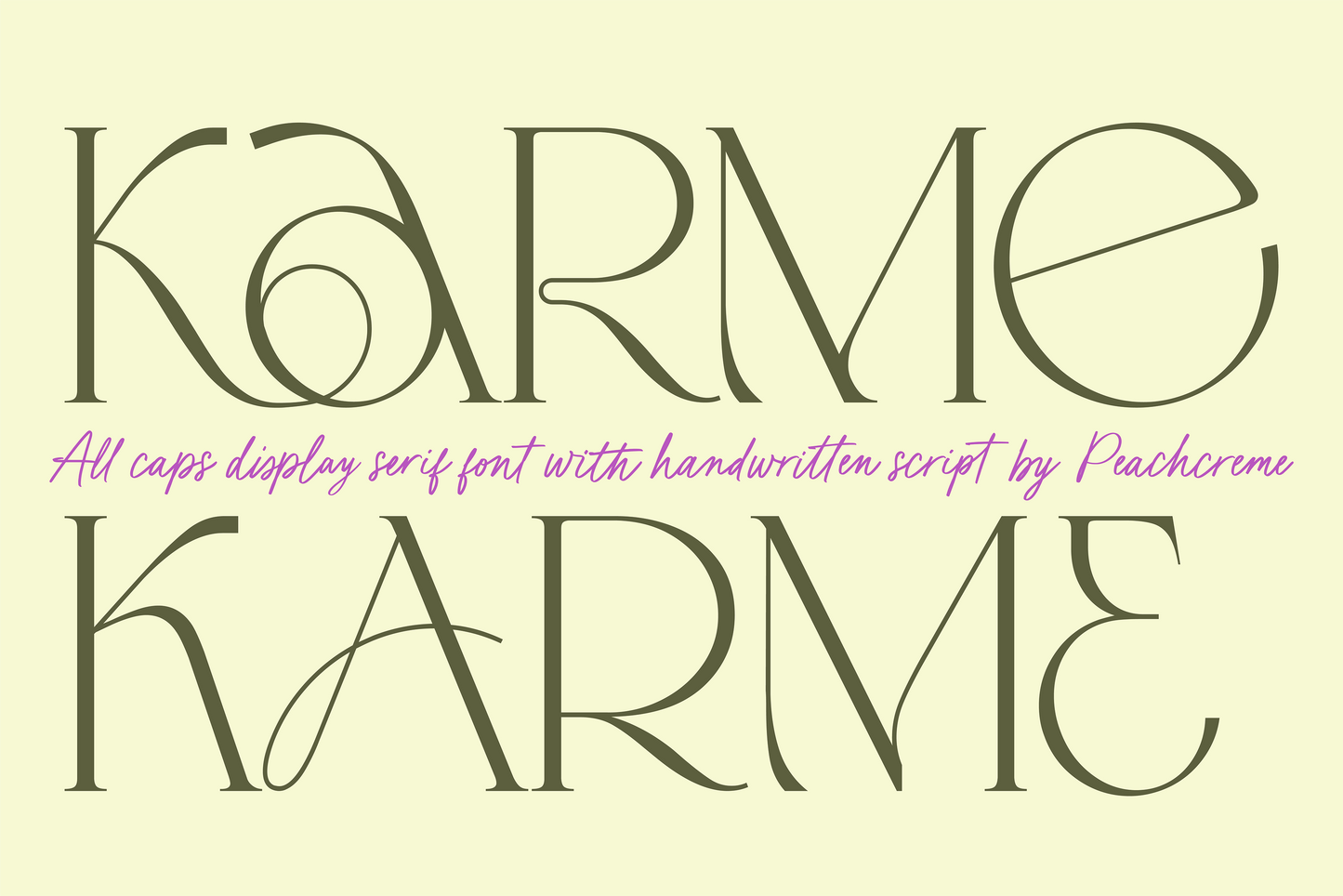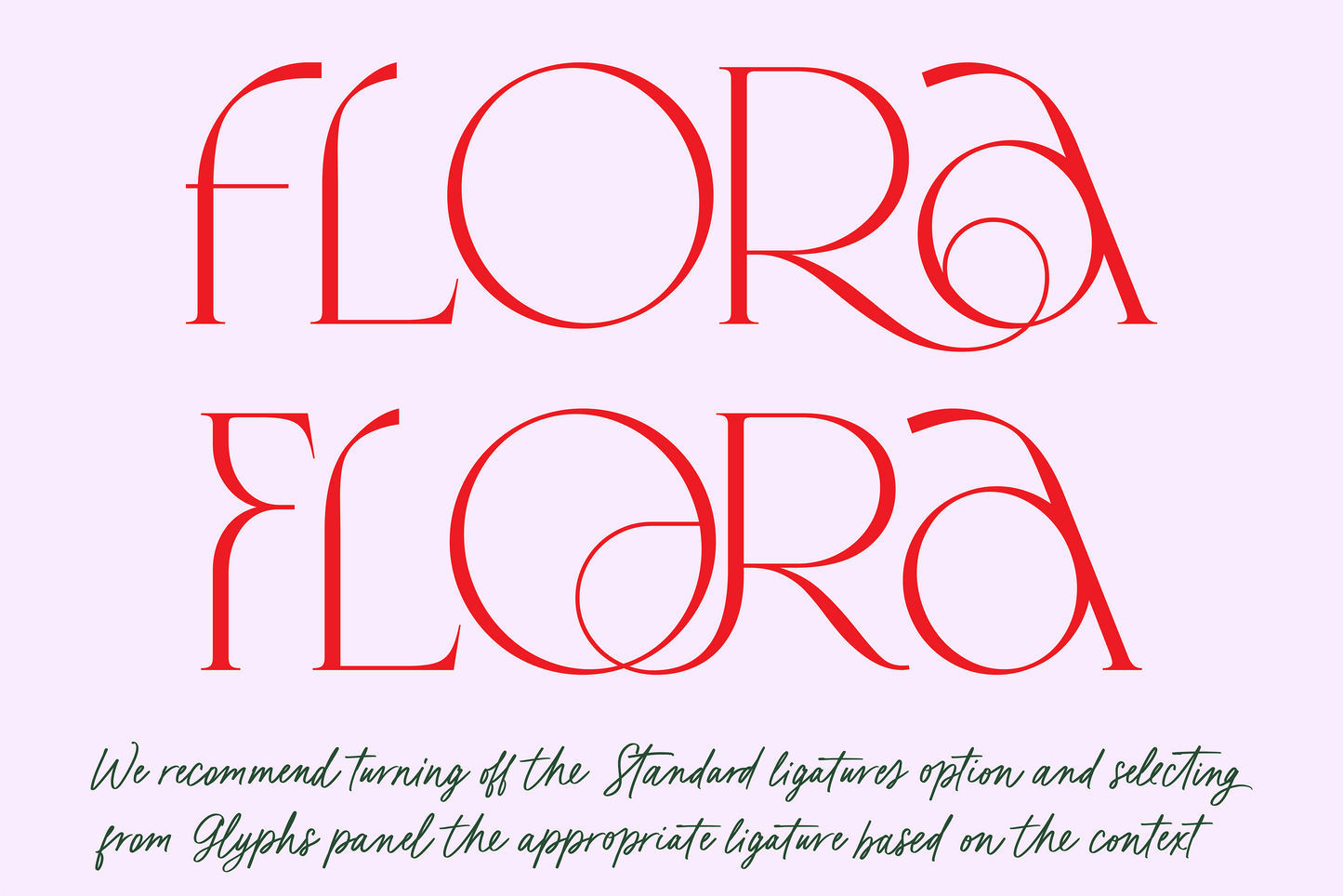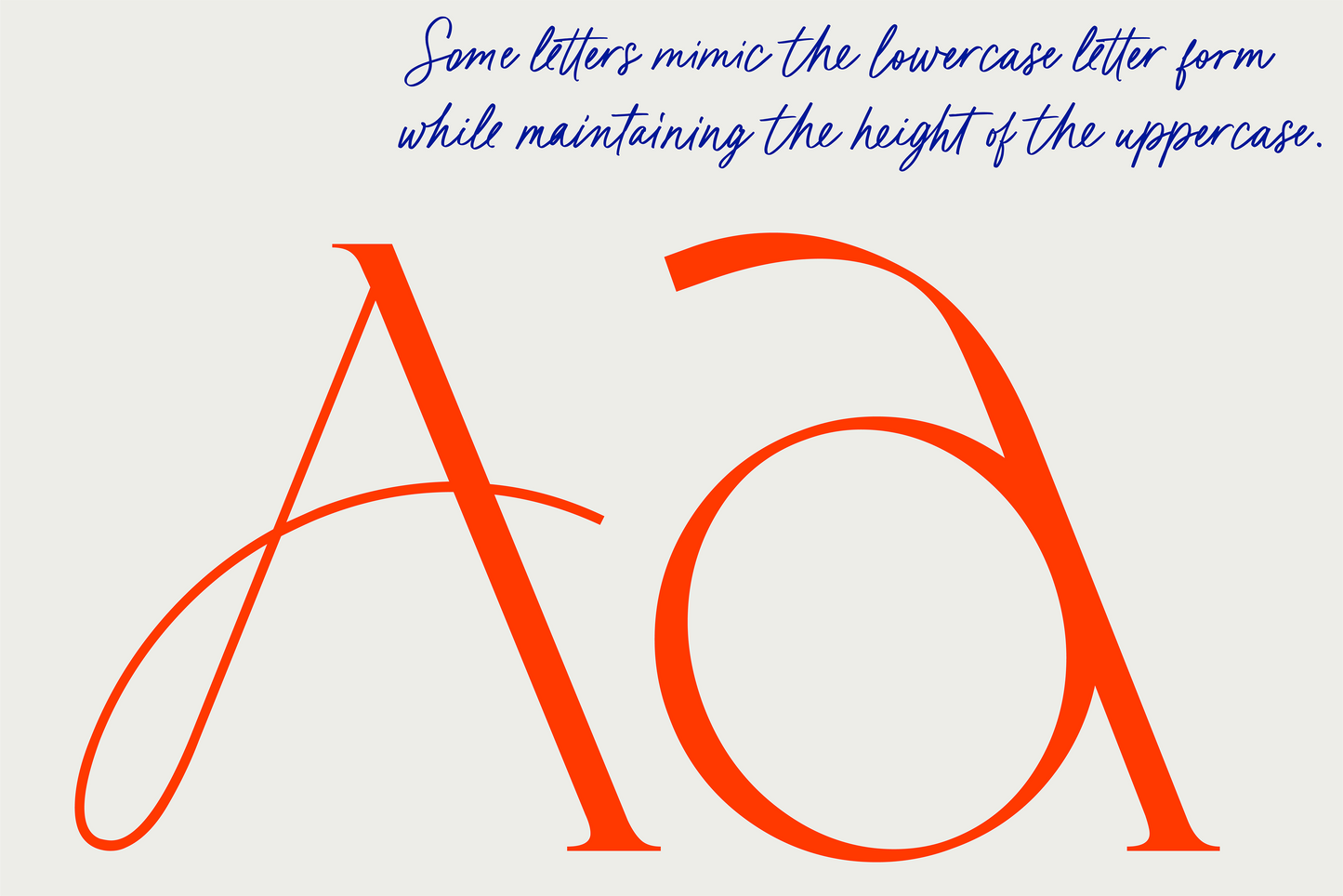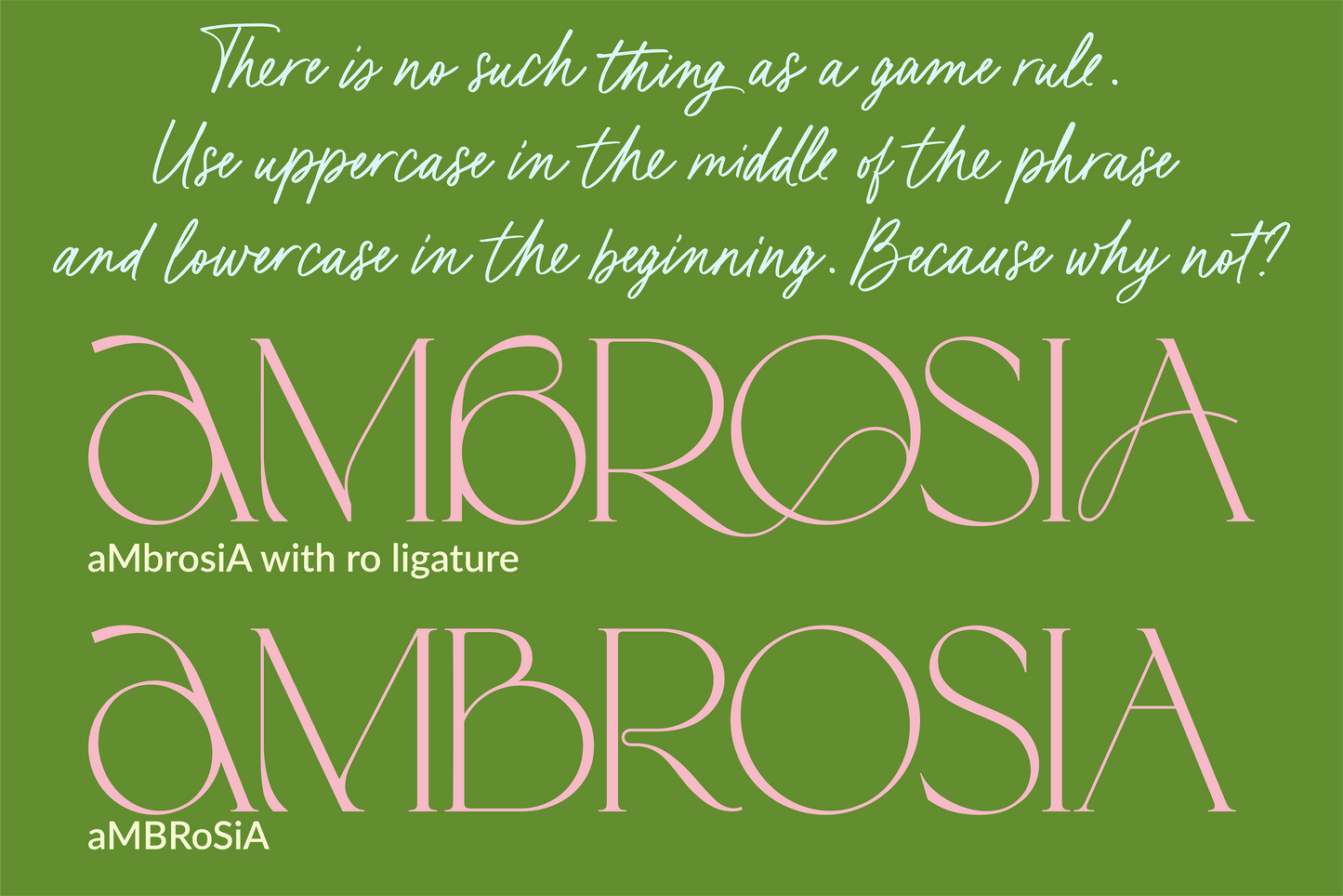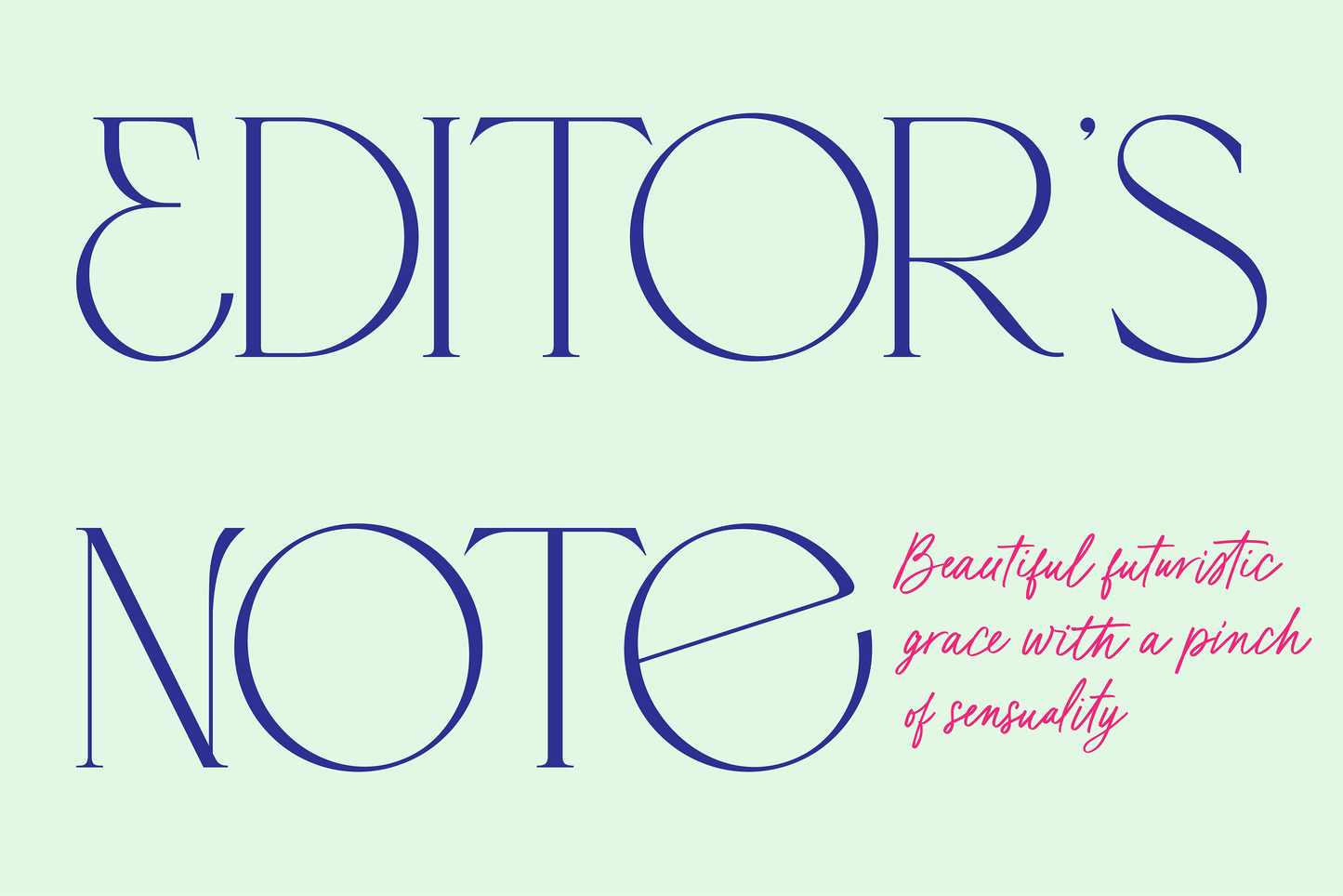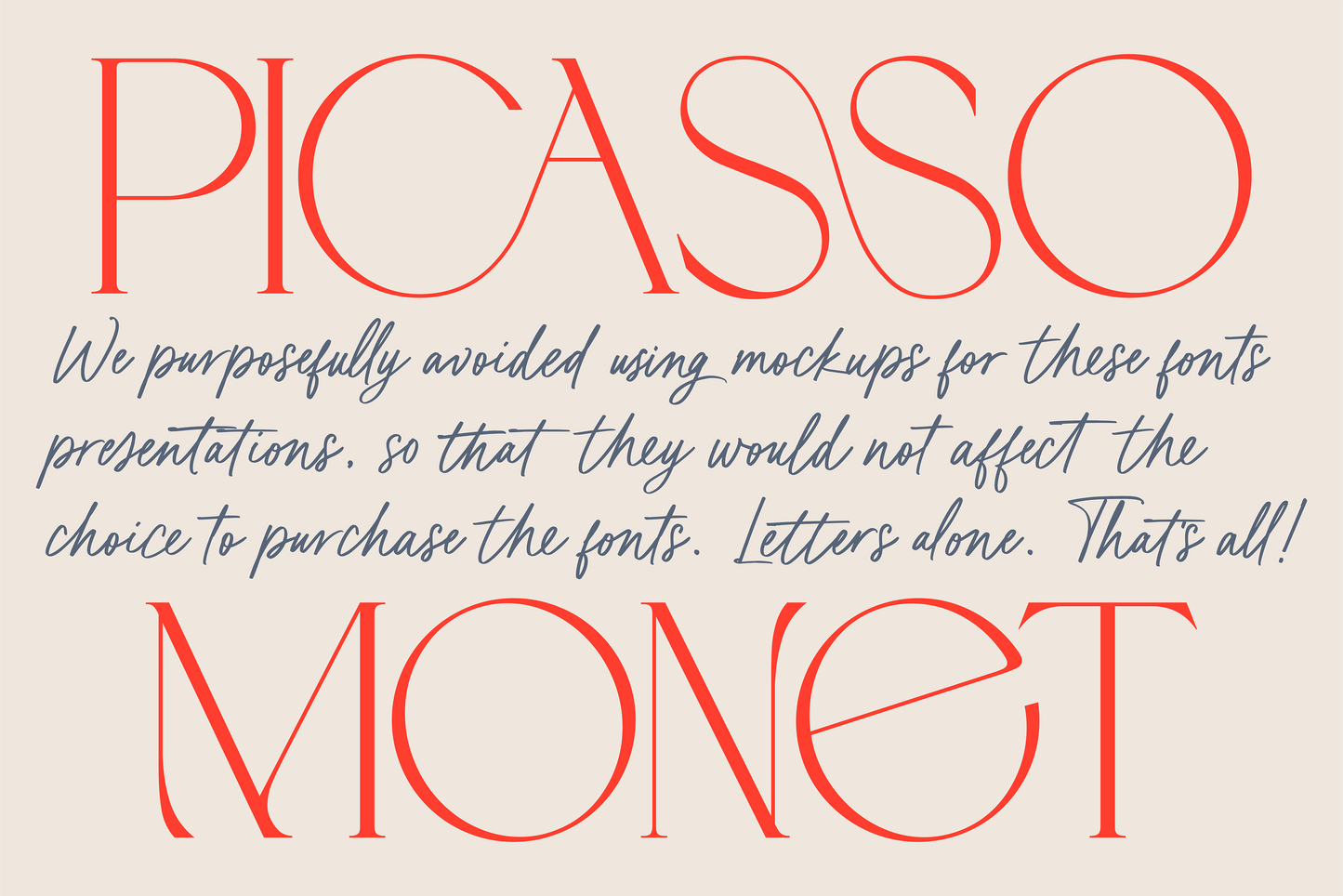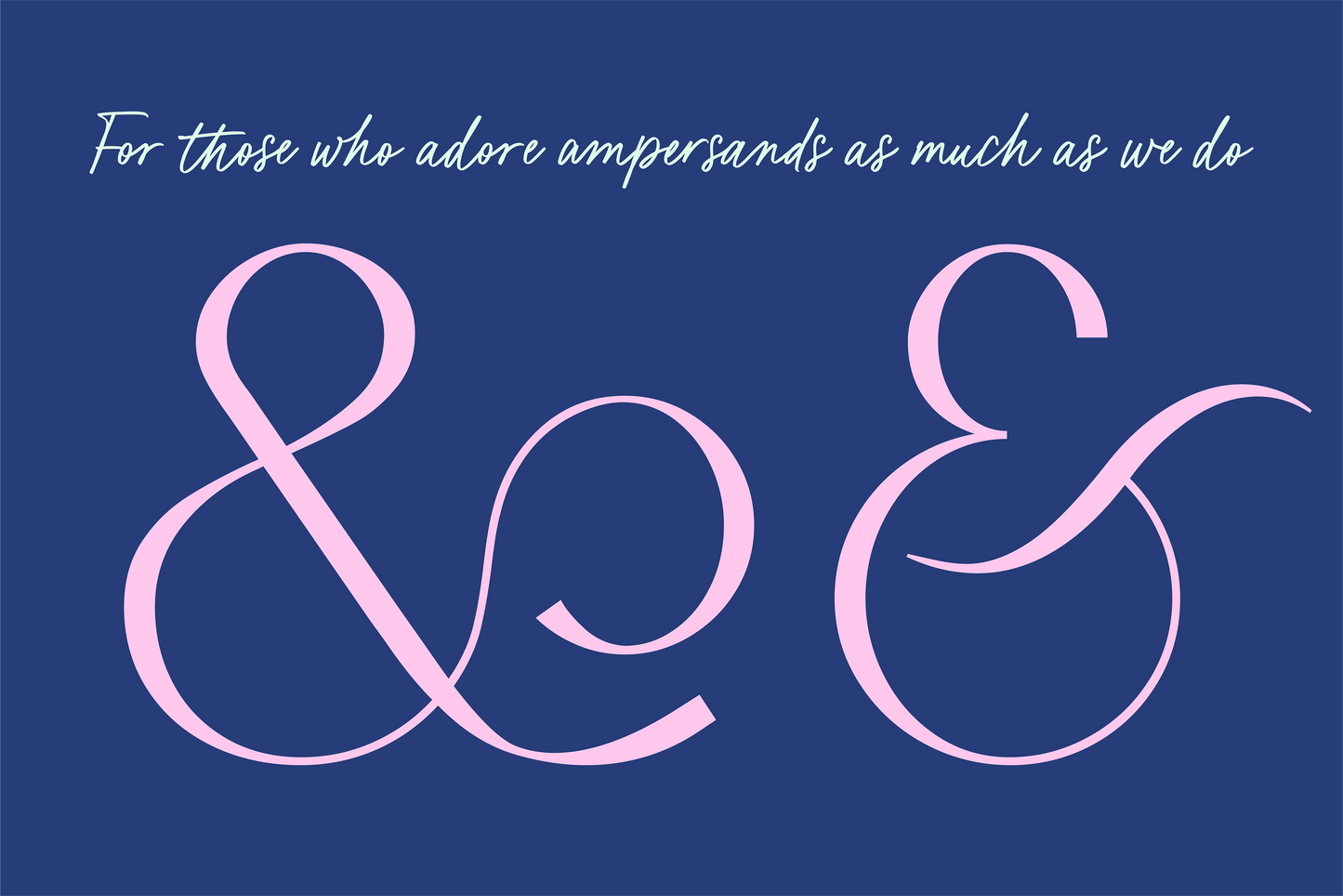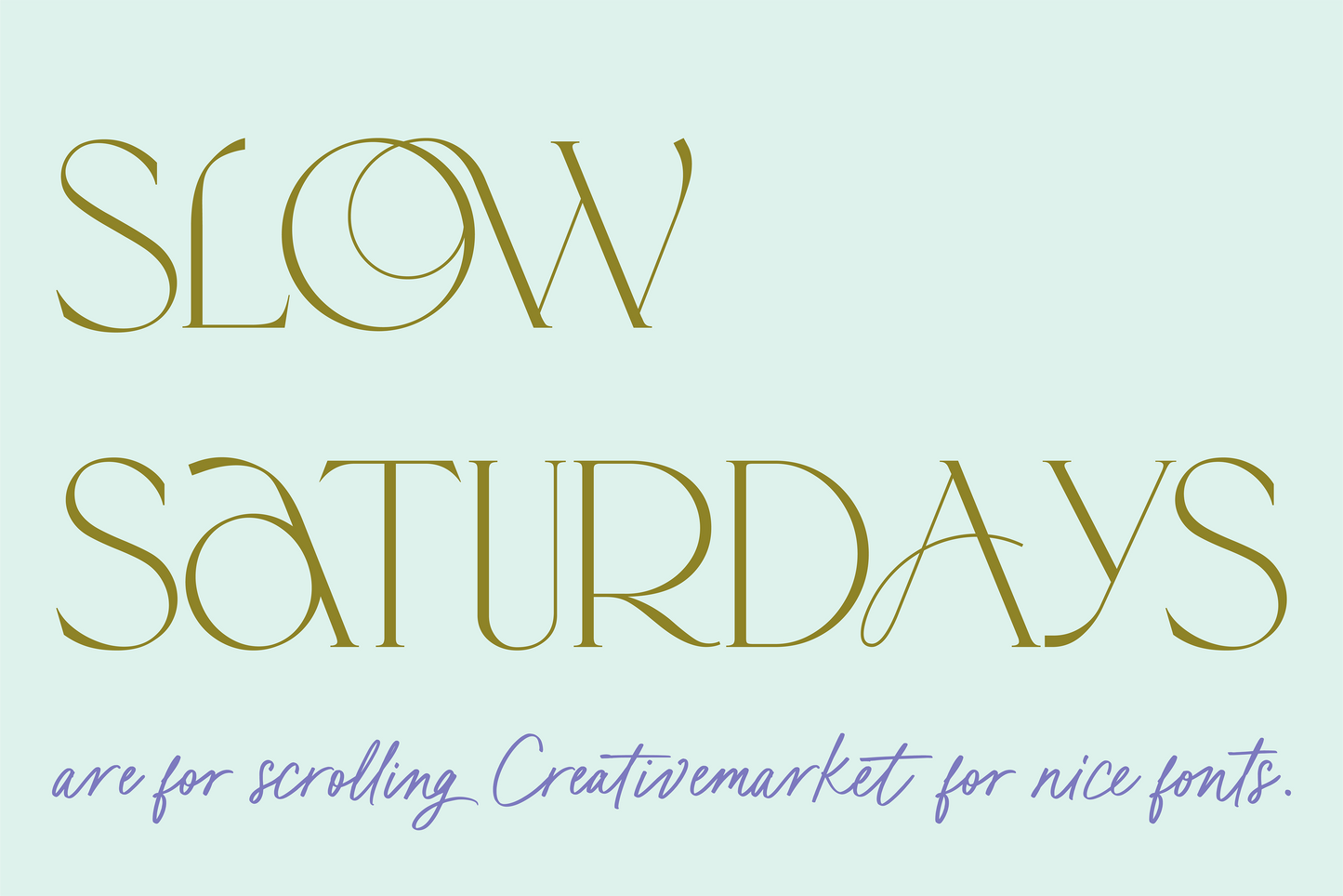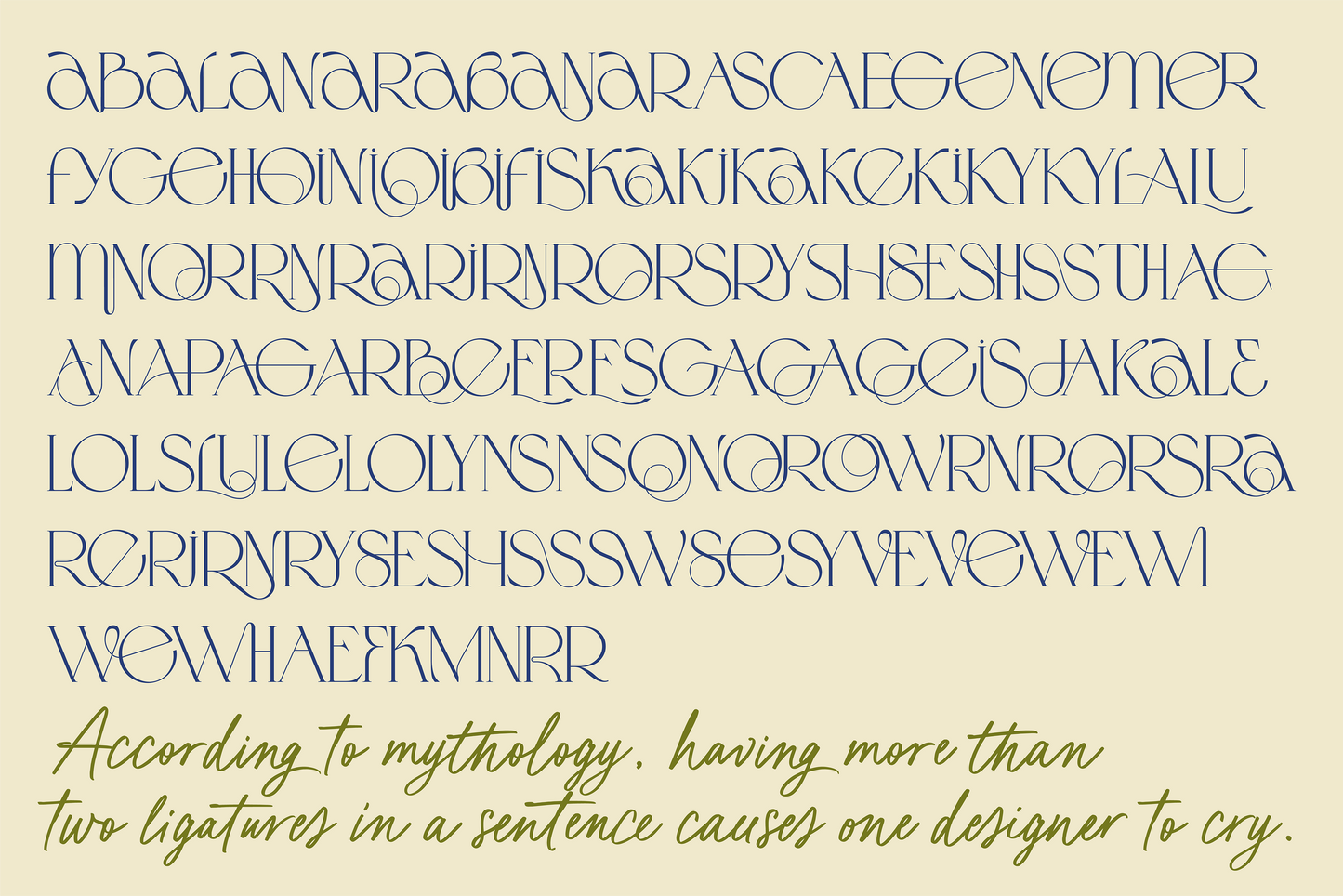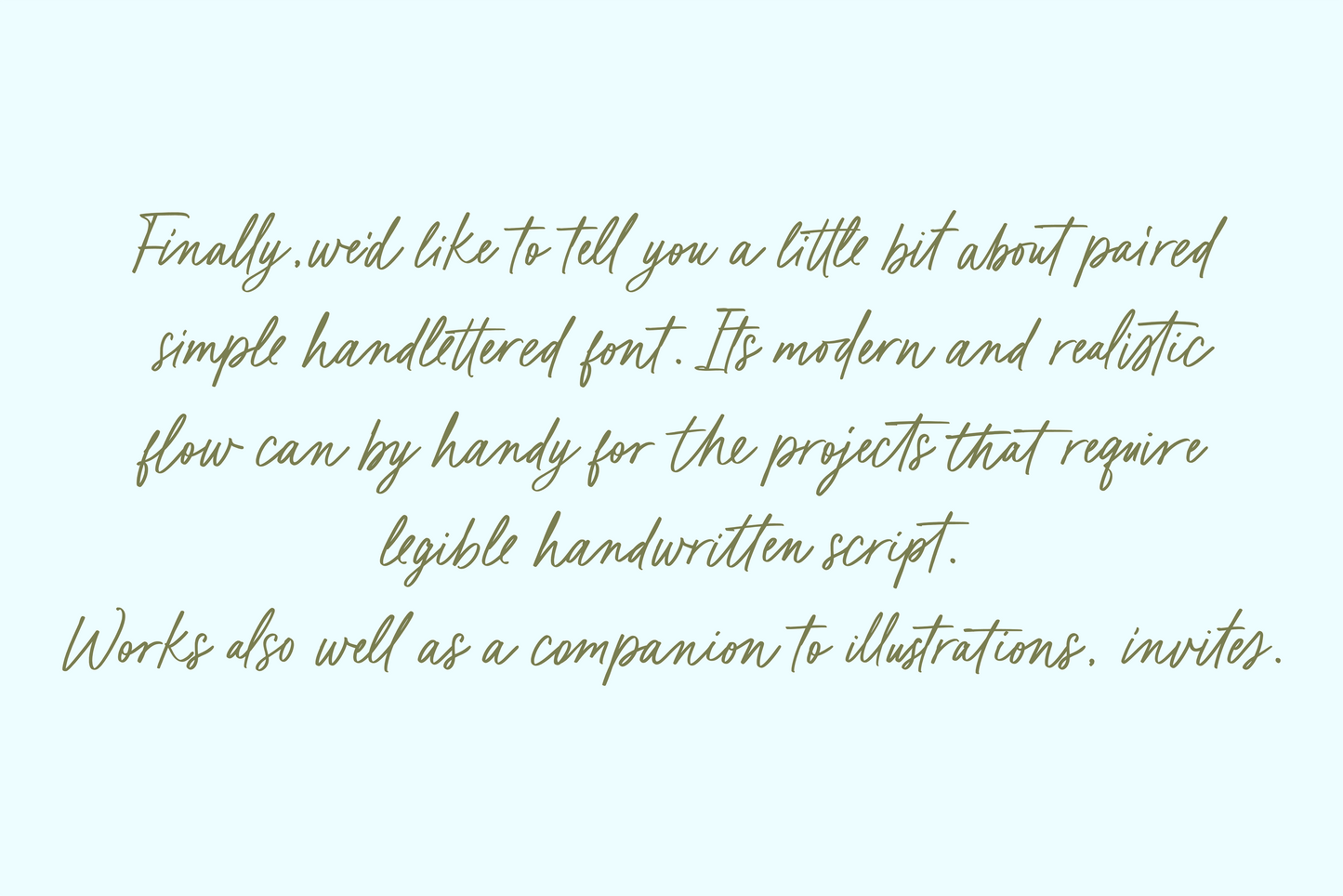
Karme // Font Duo
Say hello to our new classy font duo "Karme"- a combination of all-caps serif and stylish handwritten script!
Karme Serif - Due to its extraordinary and eccentric characters, the serif can be more suitable for displays, headers, and short logos rather than body or long texts. Some of the letters (A, E, F, K, M, N, R) have alternatives. Also, you can play with 92 different fascinating ligatures with the Karma Serif. While using the serif, we would recommend turning off the automatic ligatures and accessing them manually through the Glyphs panel (or copy/paste) so that from several options you can choose the one that fits your text best.
Karme Script - a modern and realistic handwritten font with a natural flow. Featuring 112 playful and groovy ligatures, the font can be well paired with serif, sans serif, and display fonts. Works great for stationery, websites, packaging, and many other handwritten style designs.